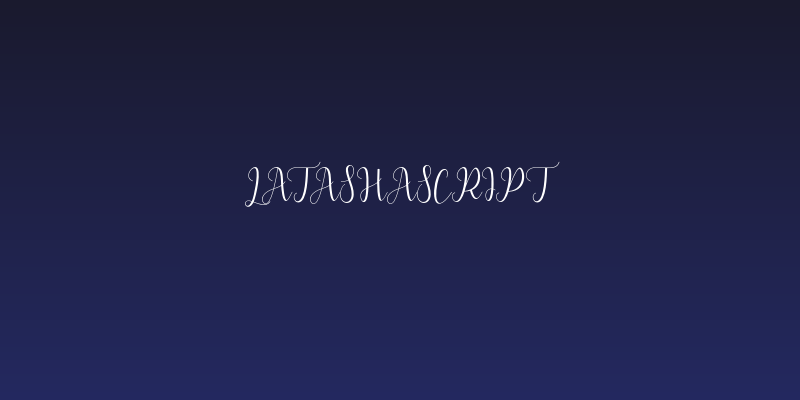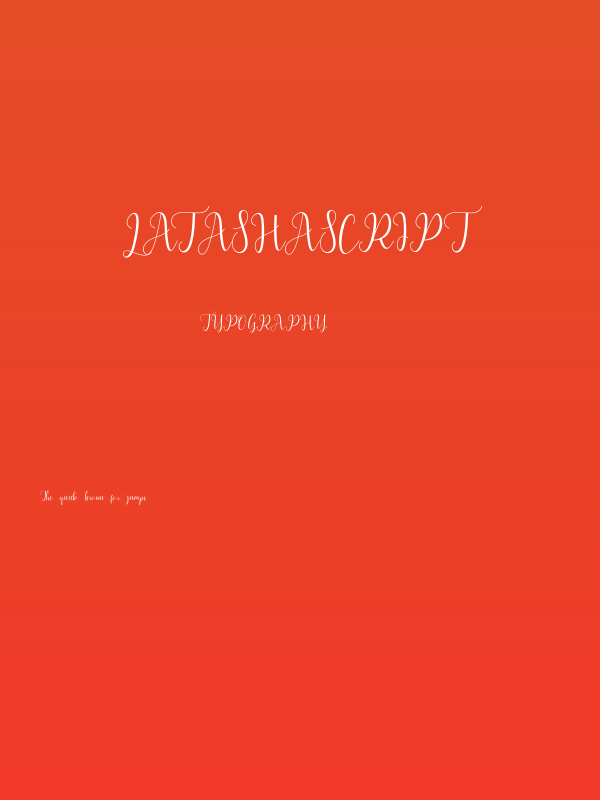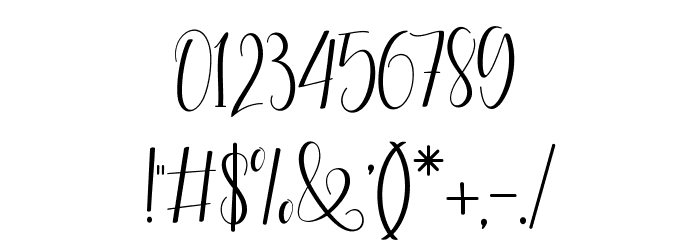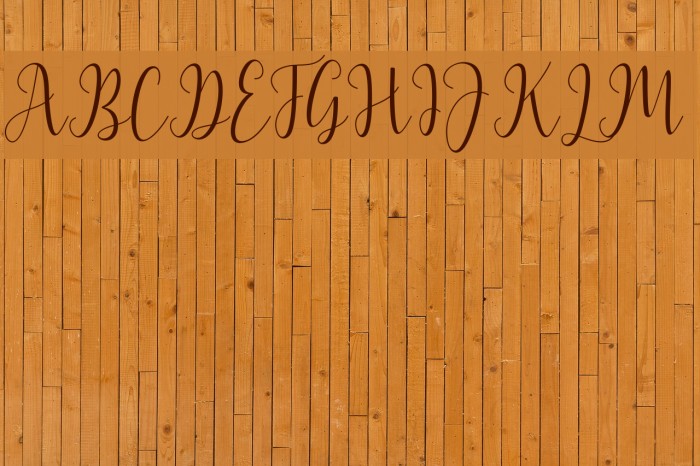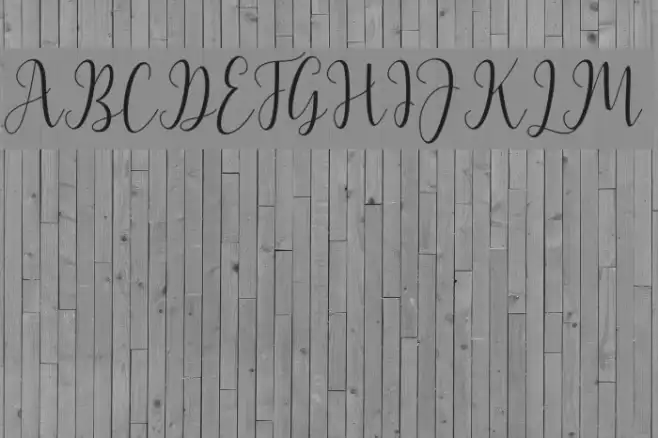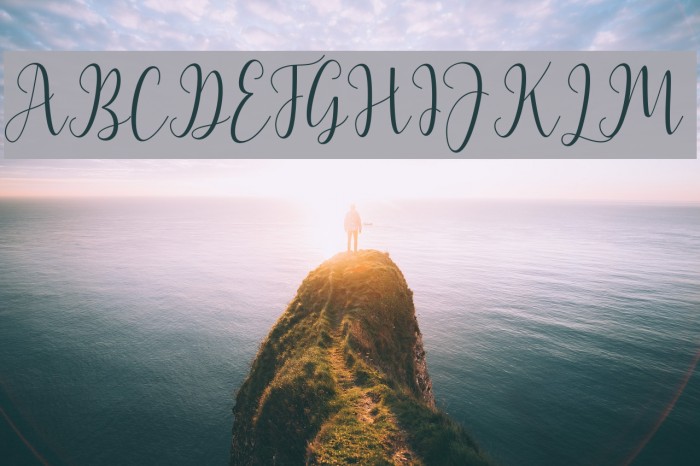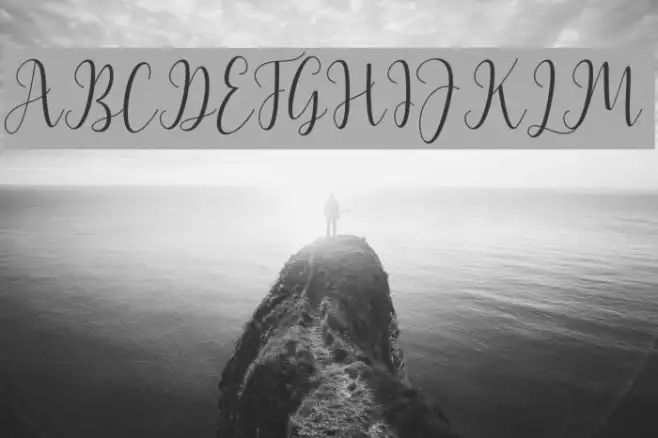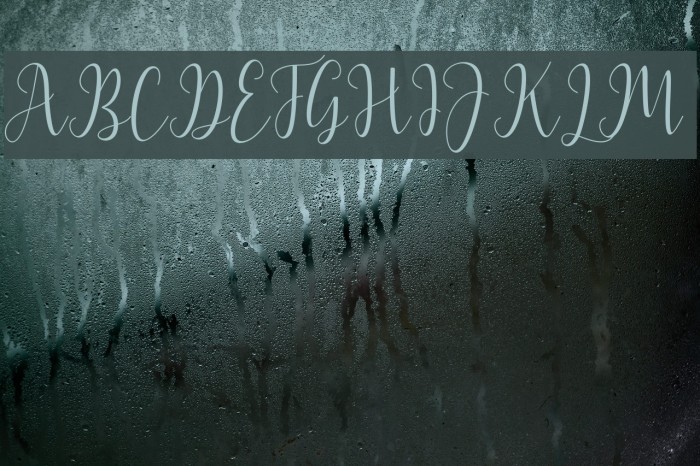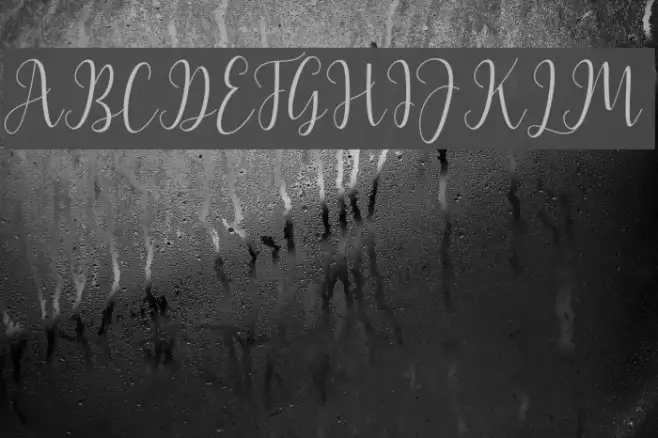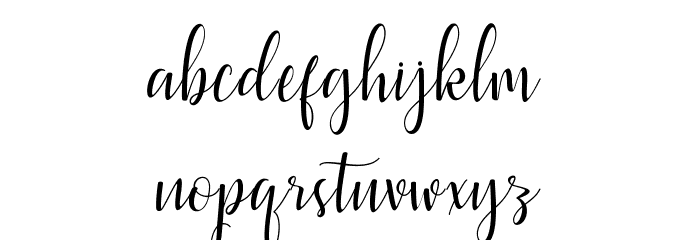
LatashaScript Font
LatashaScript Description
This elegant script font features a flowing, cursive style with graceful loops and swashes. The uppercase letters are particularly ornate, with extended flourishes that give a sense of movement and sophistication. The lowercase letters maintain a consistent slant, enhancing the handwritten feel. Numbers and special characters are designed to match the overall aesthetic, ensuring a cohesive look across all elements. The font's delicate strokes and high contrast between thick and thin lines add to its refined appearance, making it ideal for projects that require a touch of elegance and class.
| Proposed Projects | Wedding invitations, elegant branding, greeting cards, and luxury product packaging. |